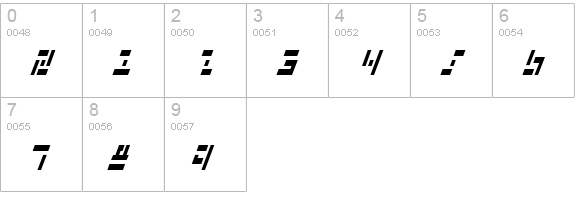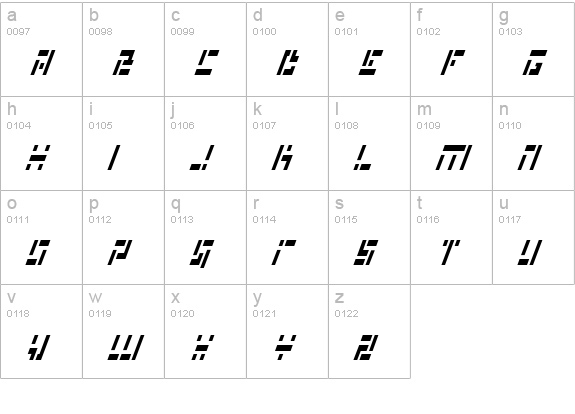
Missile Man Italic Cond is a distinctive, condensed-width, italic variant in the Missile typeface family \xE2\x80\x94 well suited to design and typography projects.
Missile Man Italic Cond font is a sleek and modern typeface that exudes sophistication and style. With its slim and italicized design, this font is perfect for adding a touch of elegance to any project. Whether you're designing a website, creating a logo, or crafting marketing materials, Missile Man Italic Cond font will make your text stand out. Best of all, this font is completely free to download at FontsMarket.com. You can easily access this versatile and eye-catching typeface to enhance your creative projects without any cost. Don't miss out on the opportunity to elevate your designs with Missile Man Italic Cond font - the perfect choice for those looking for a touch of class and flair.